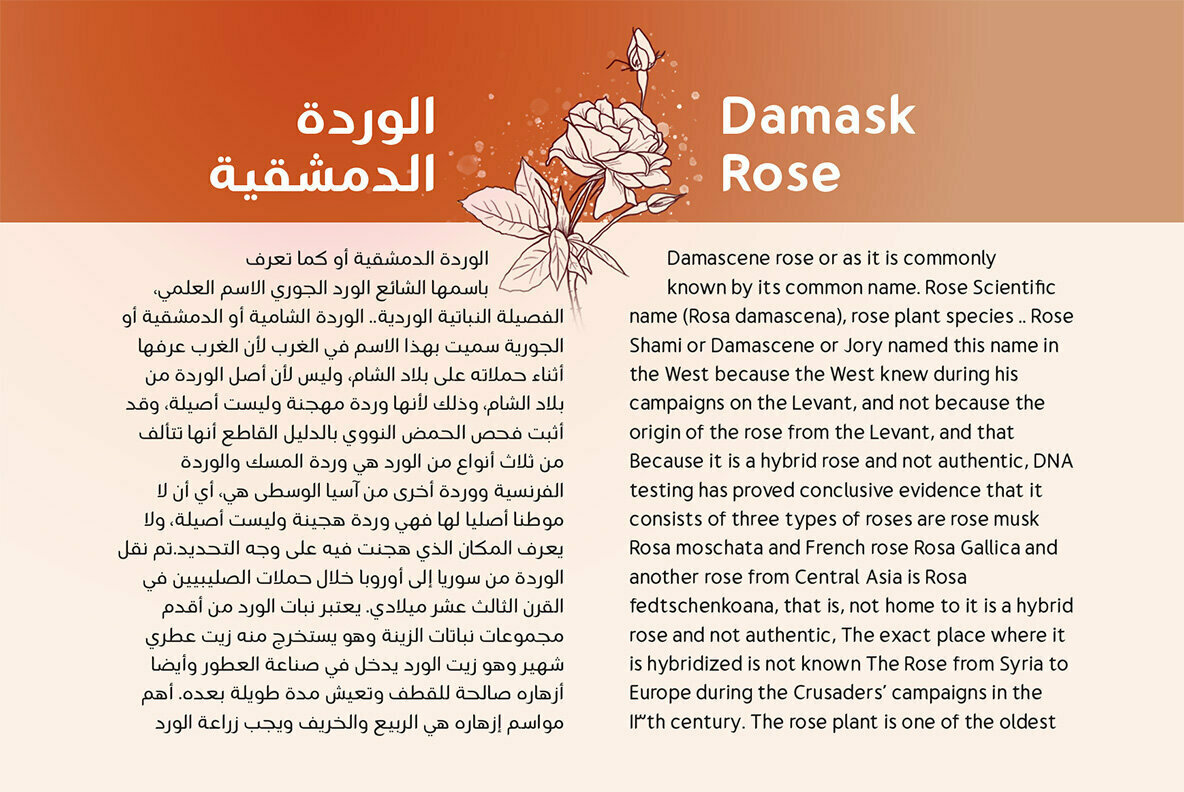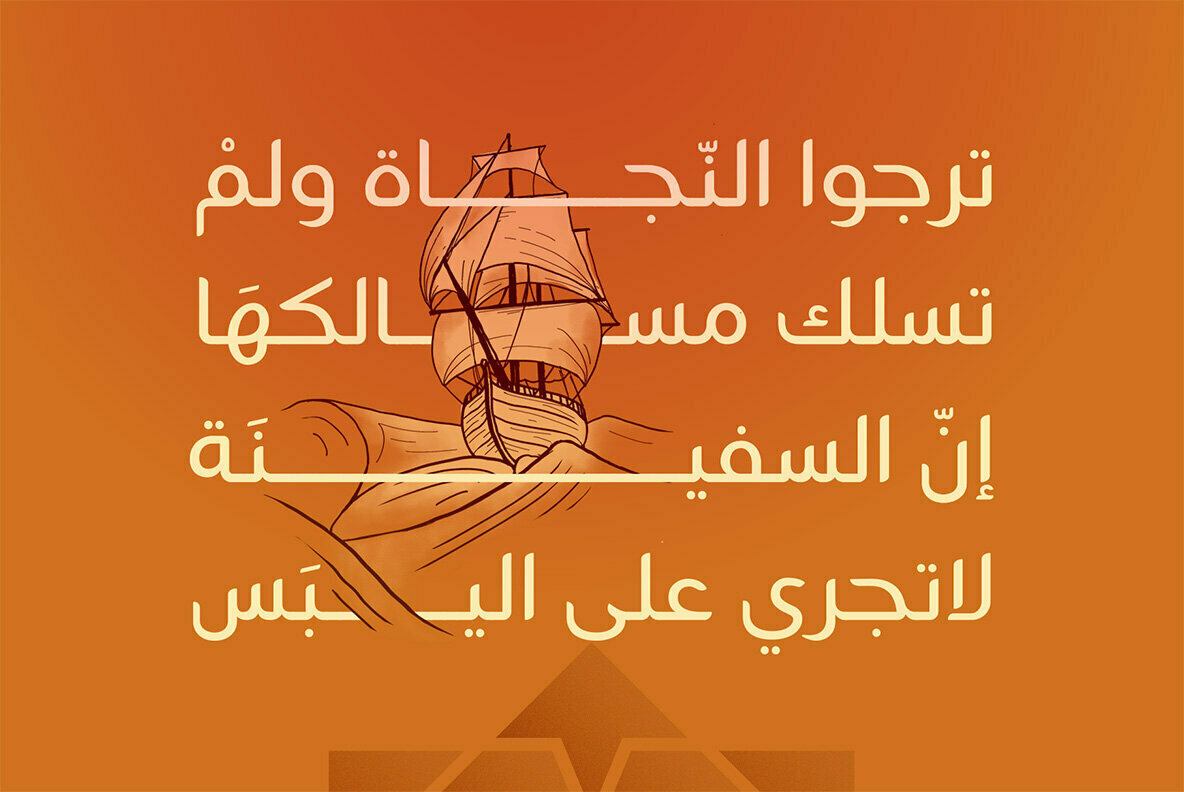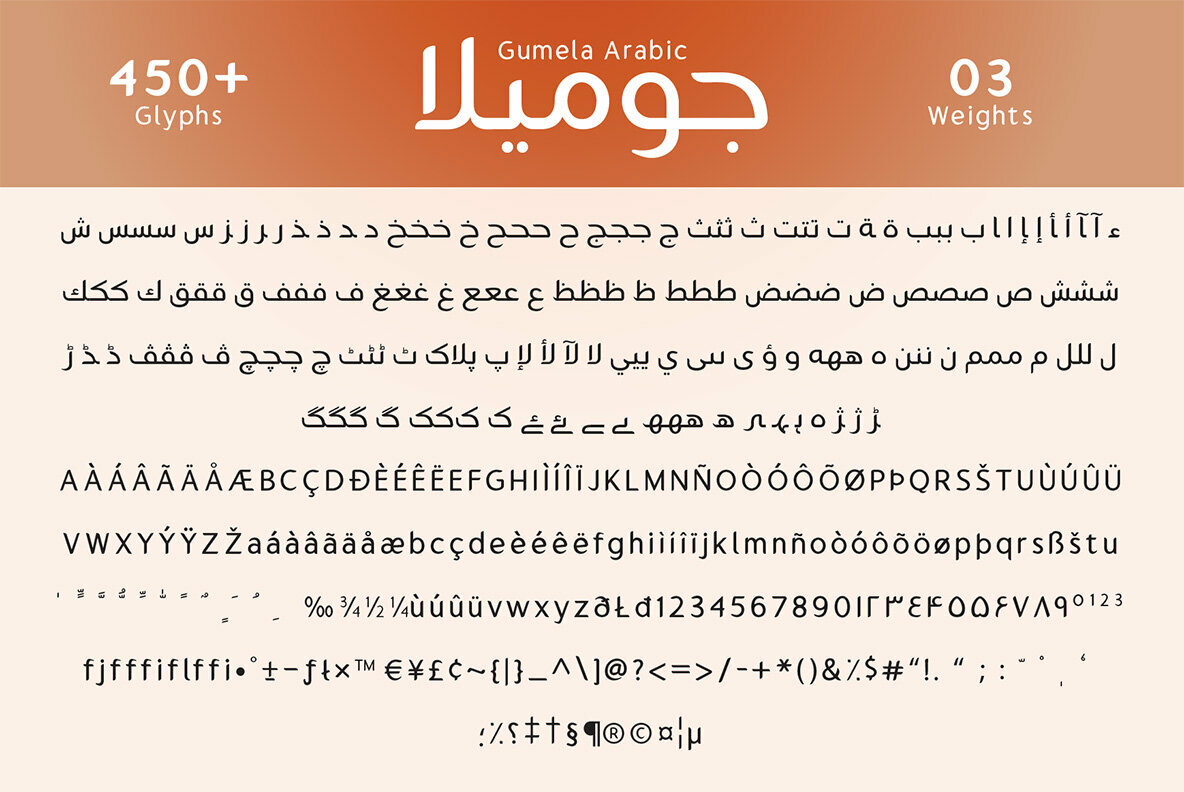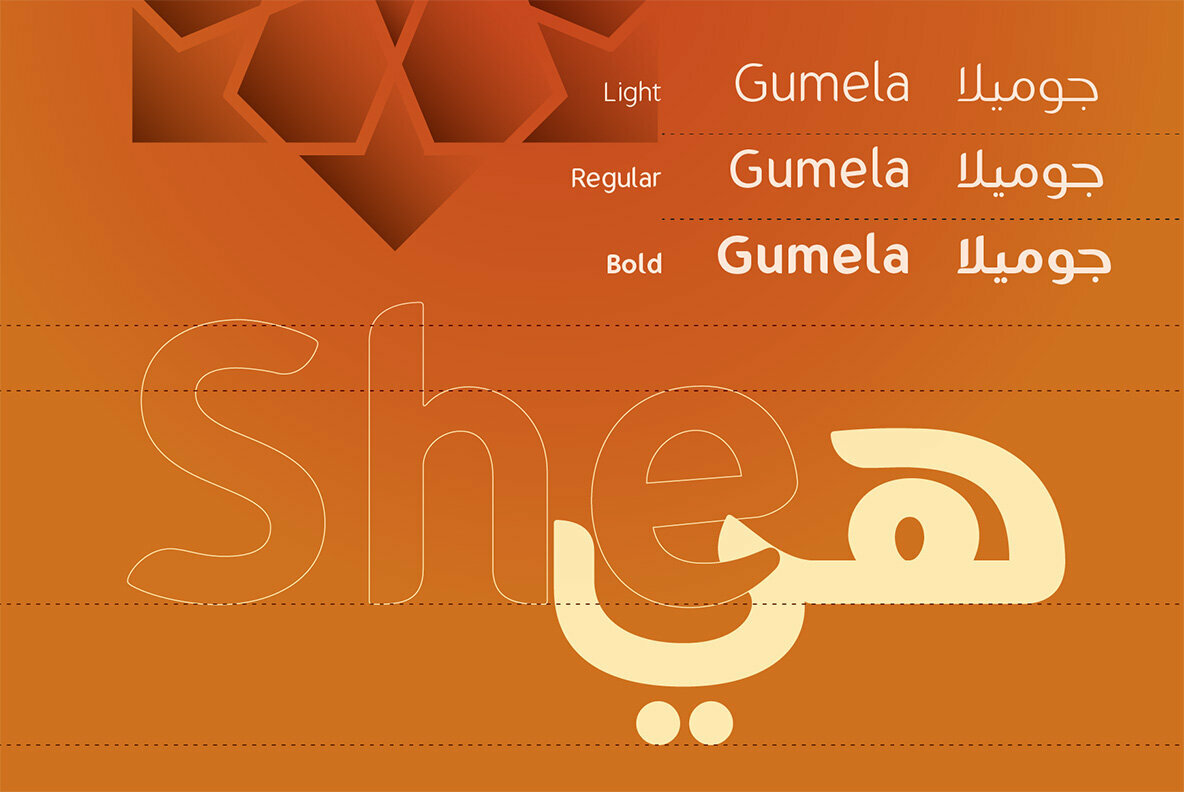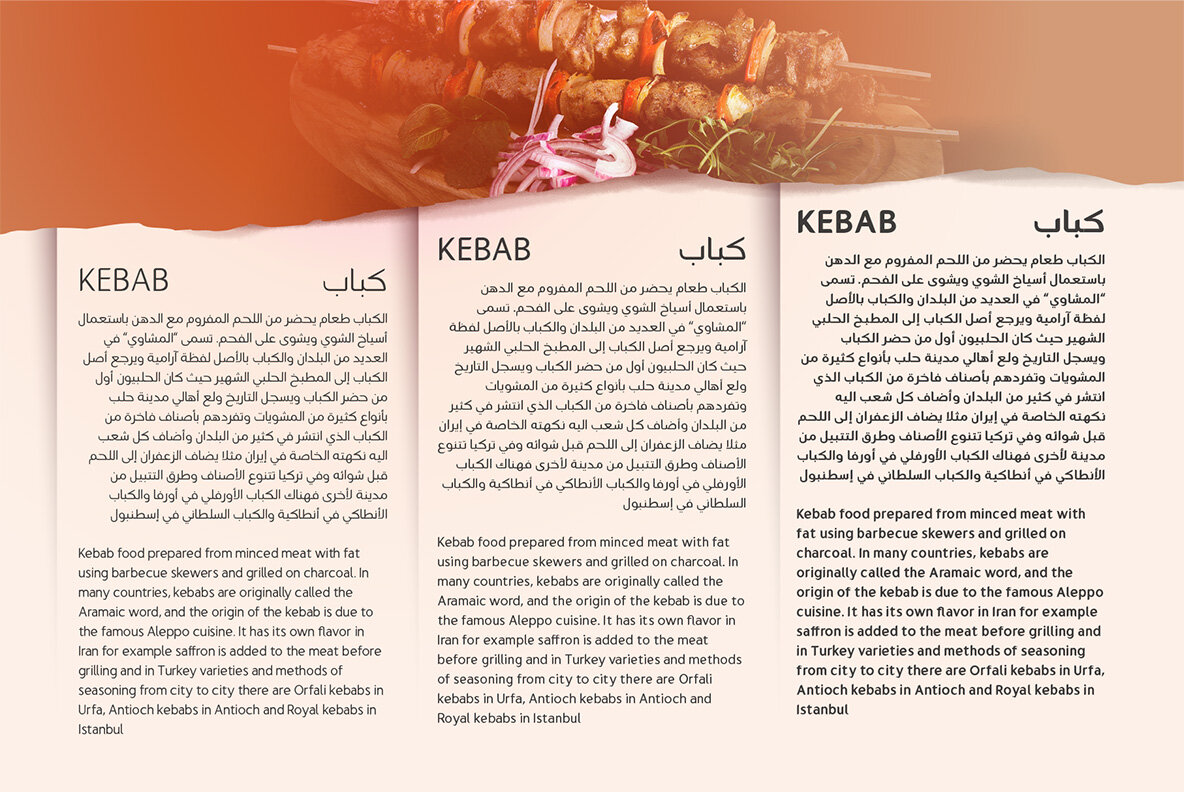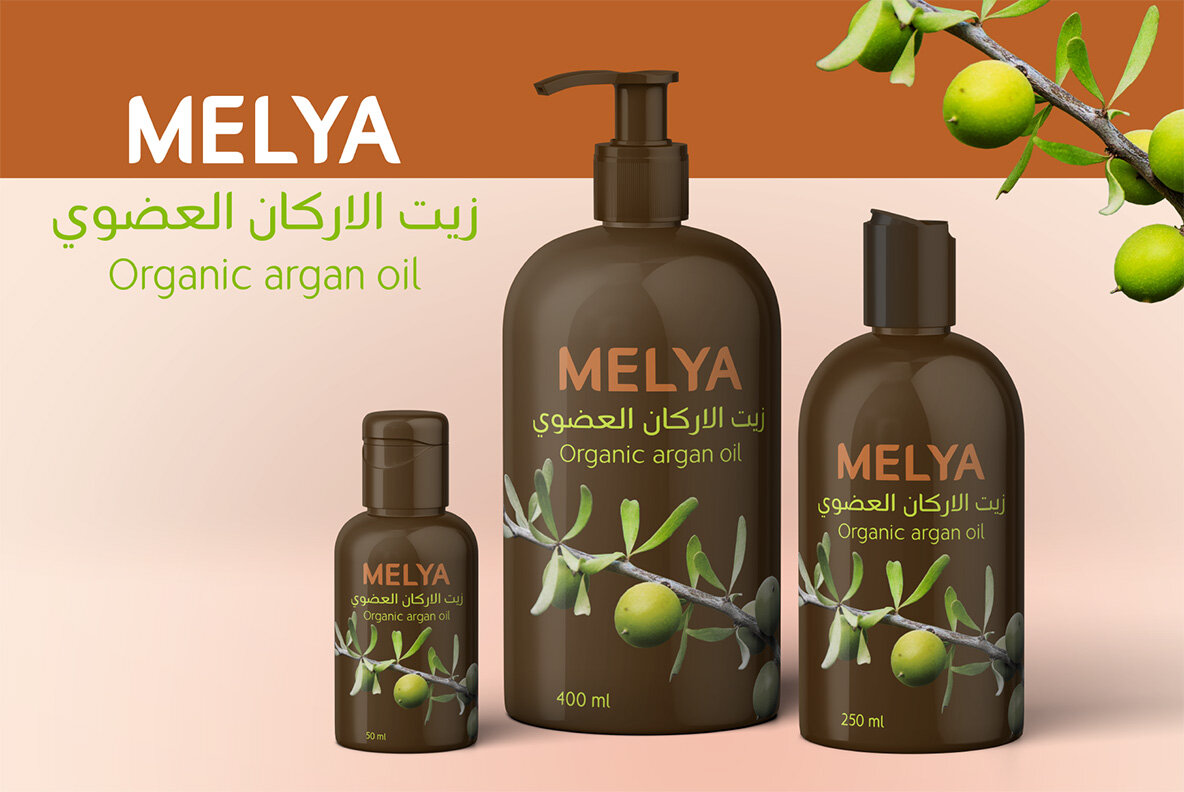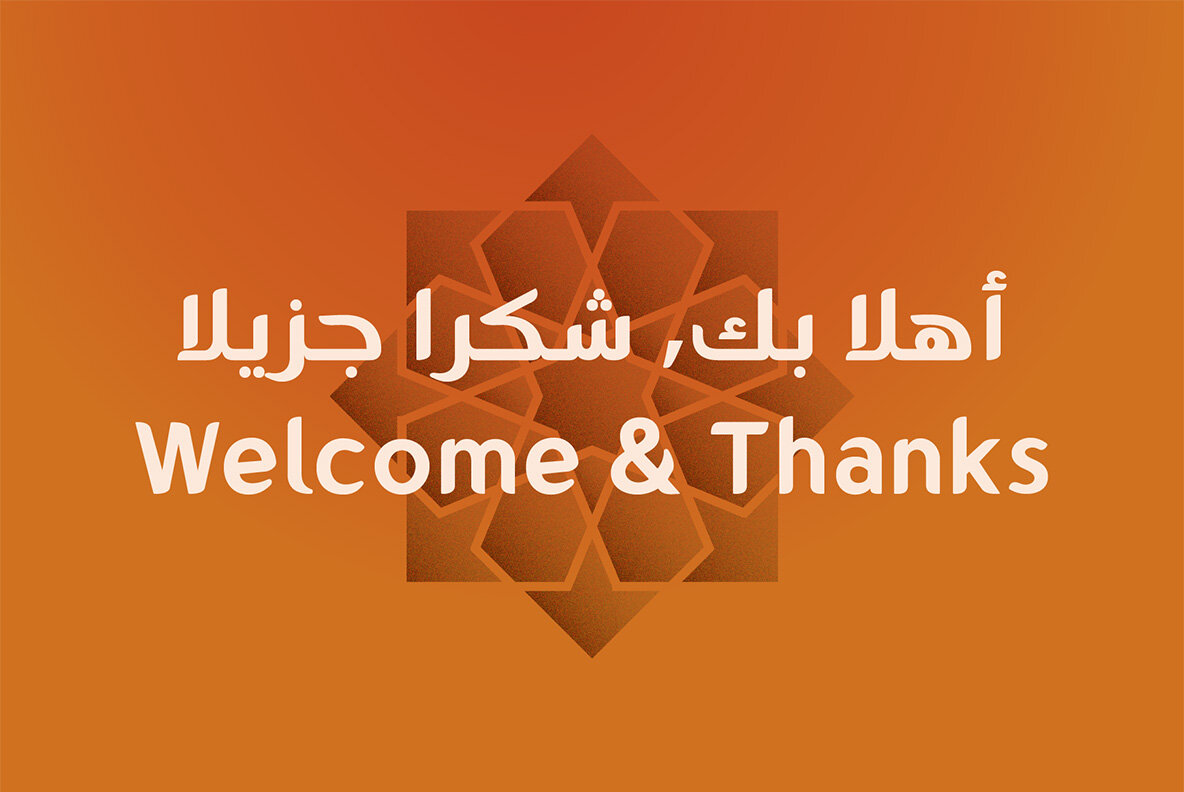
Gumela Arabic Font
Arabic font version of Gumela, still with Gumela latin style, based on rounded sans serif whose edges end with unique shapes, to line up in harmony between Latin and Arabic.